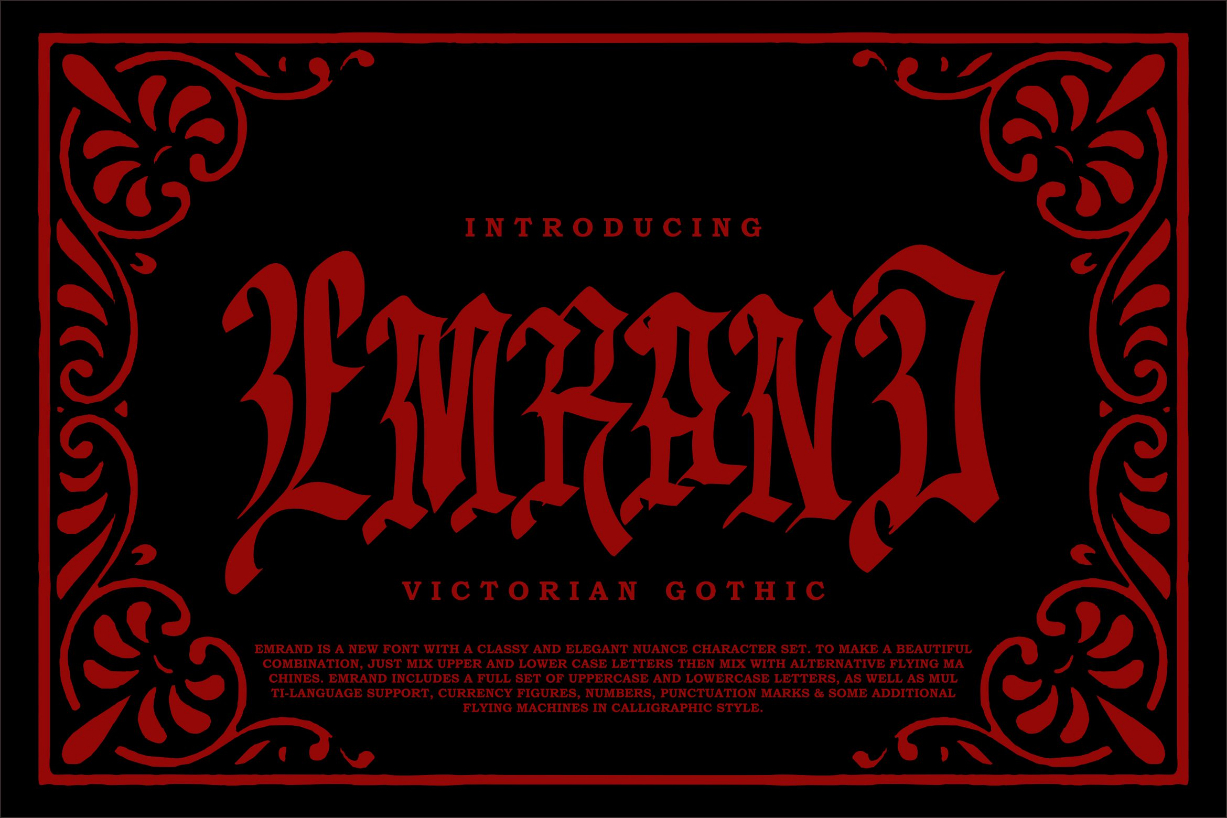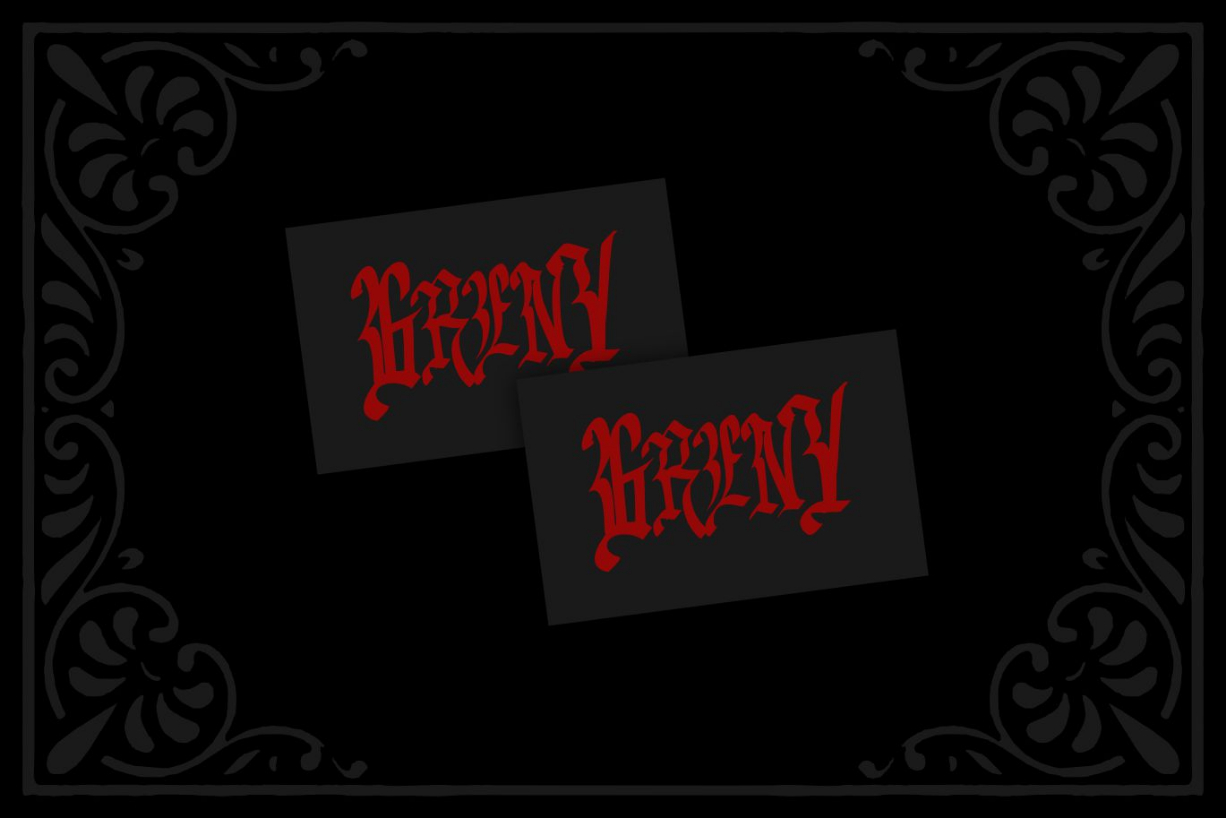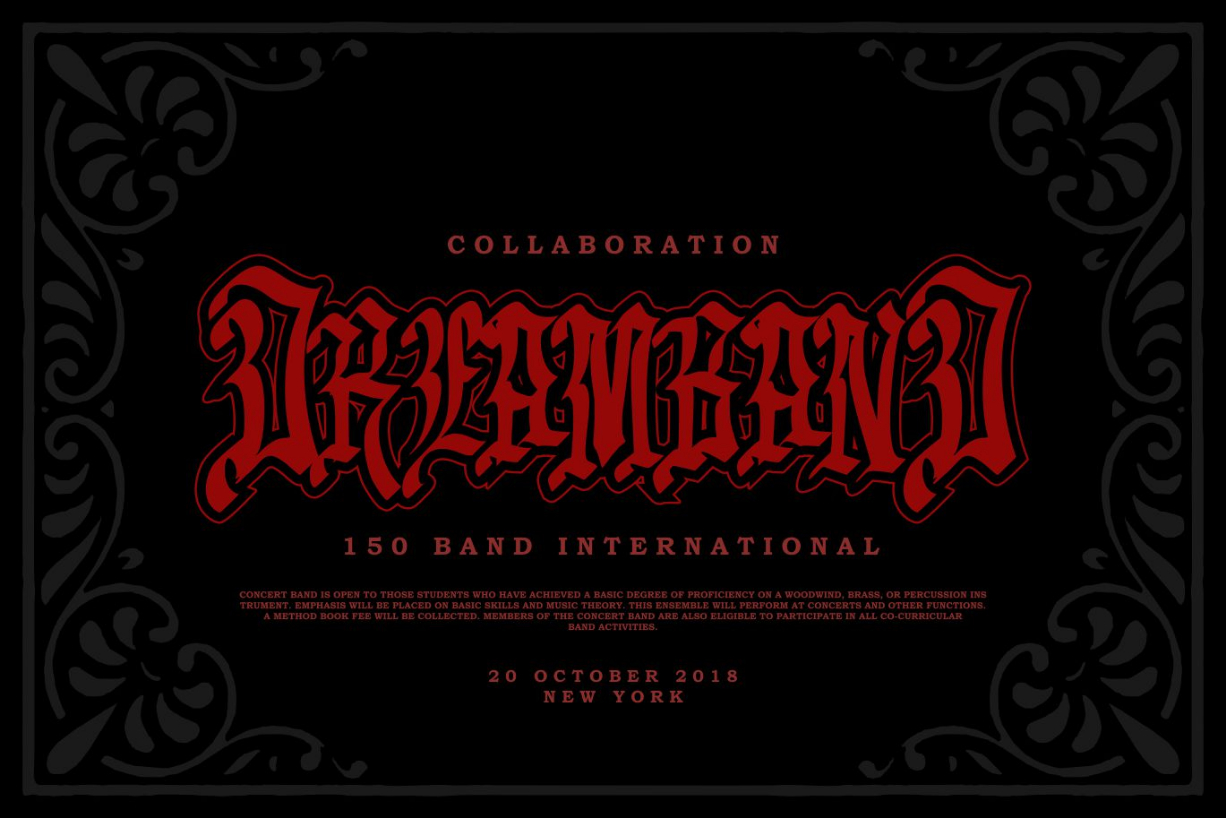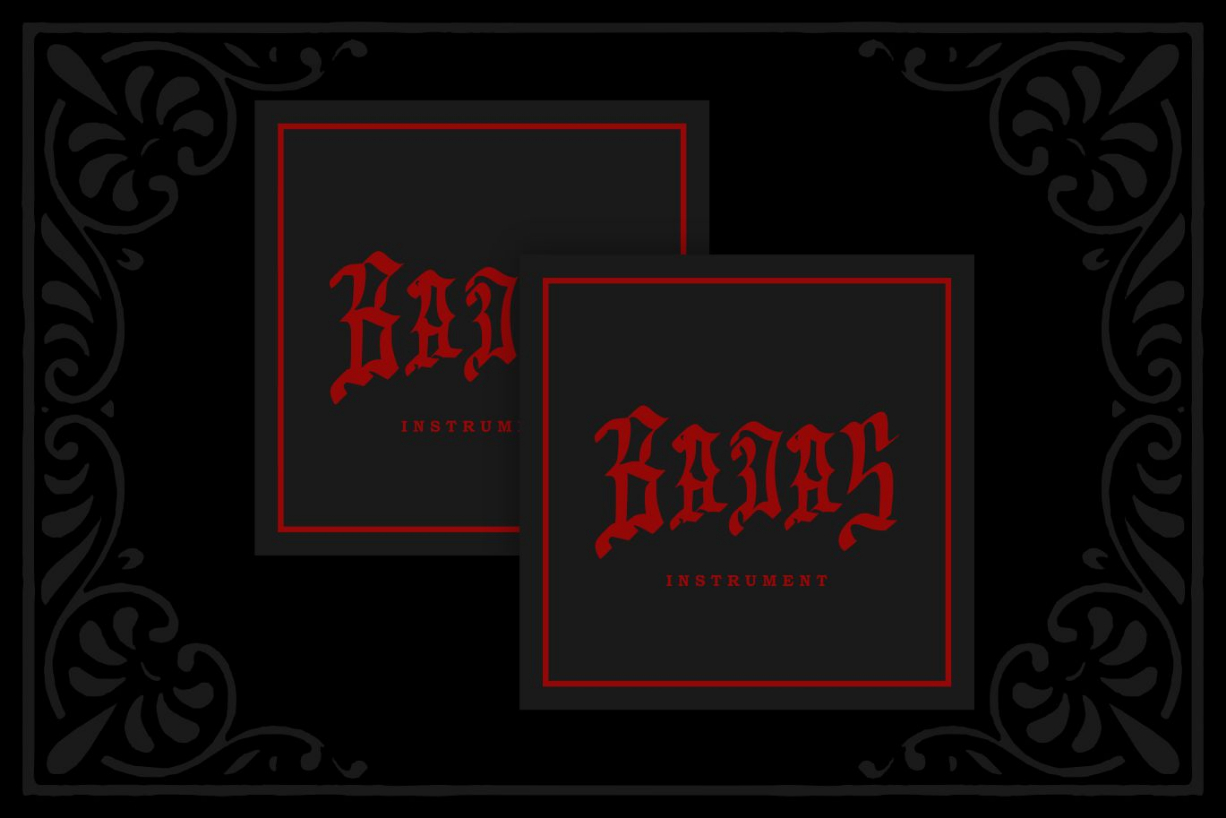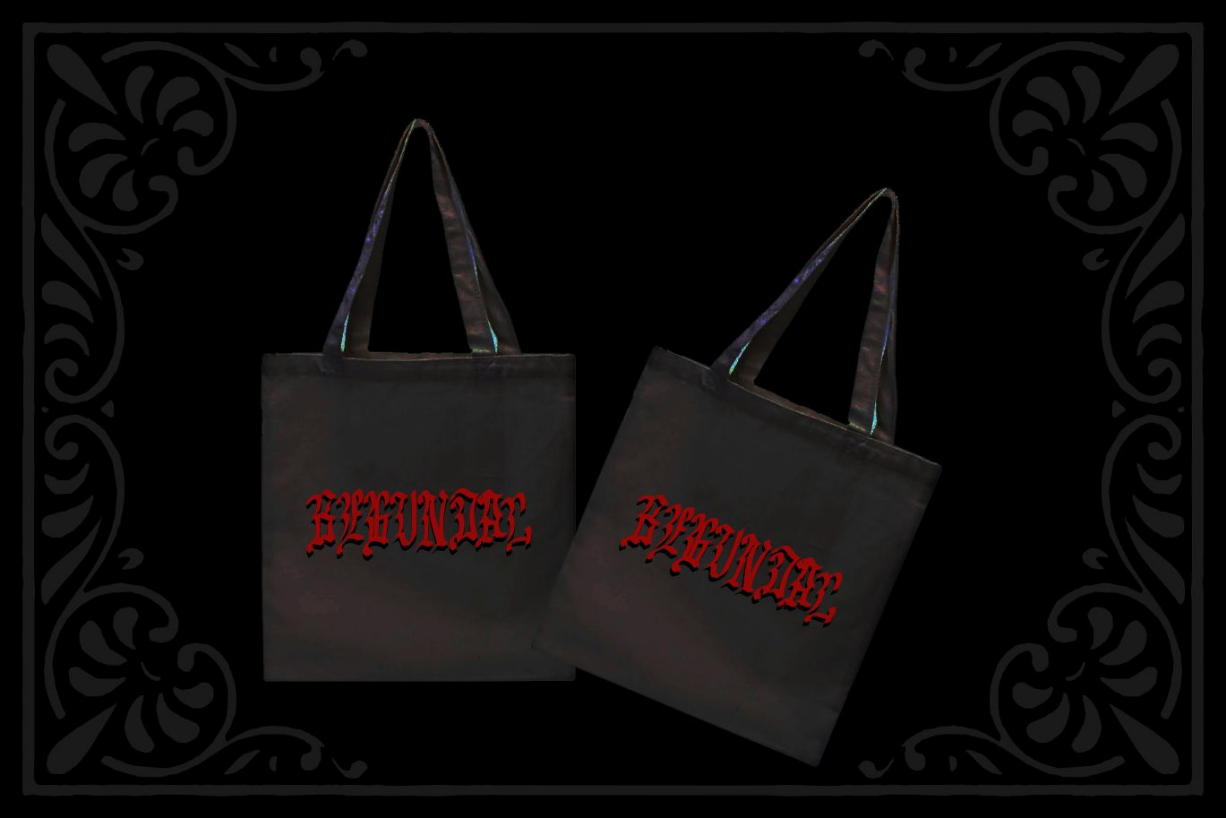
Emrand Font
About Emrand Font
Emrand is a dramatic and incredibly unique blackletter font. Add it to your most creative ideas and it will undoubtedly make them stand out!